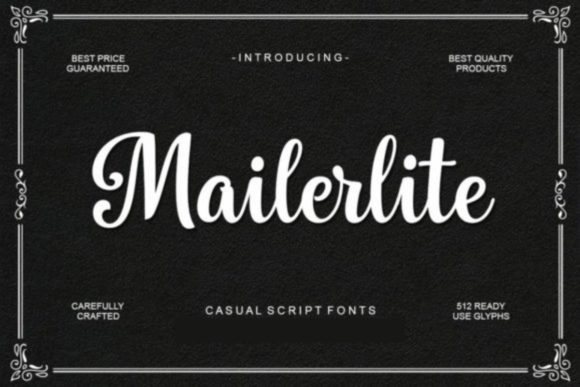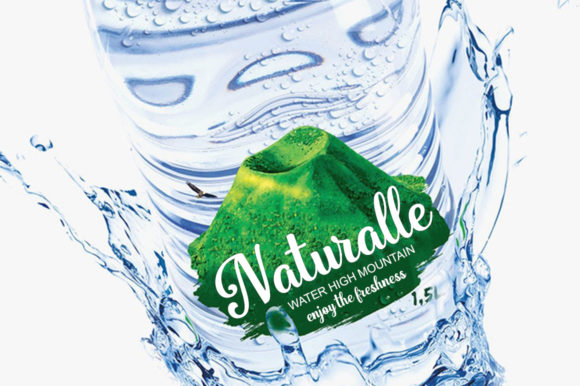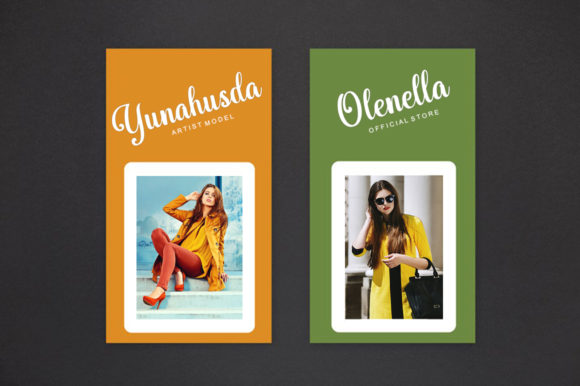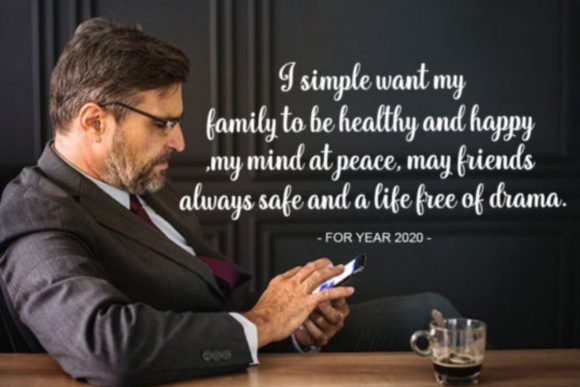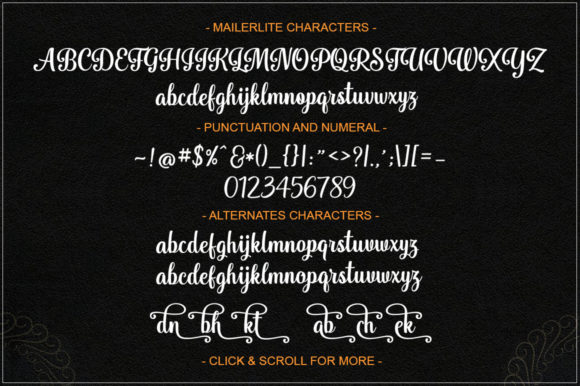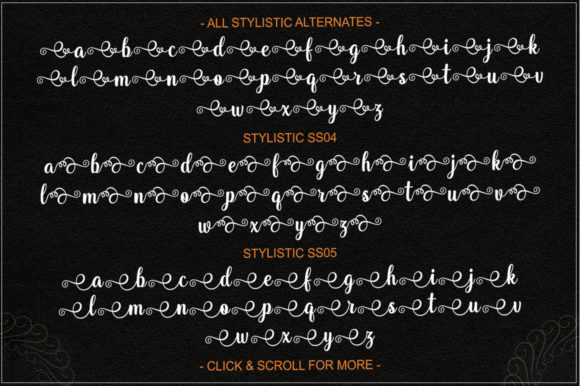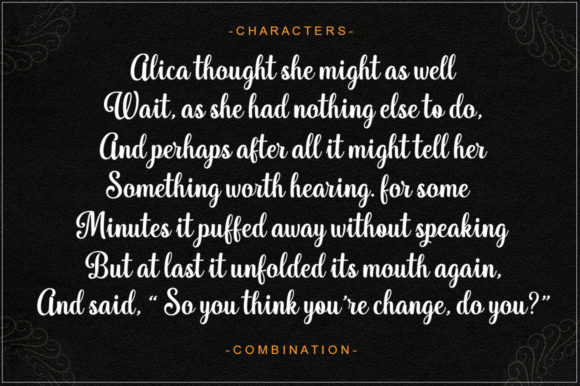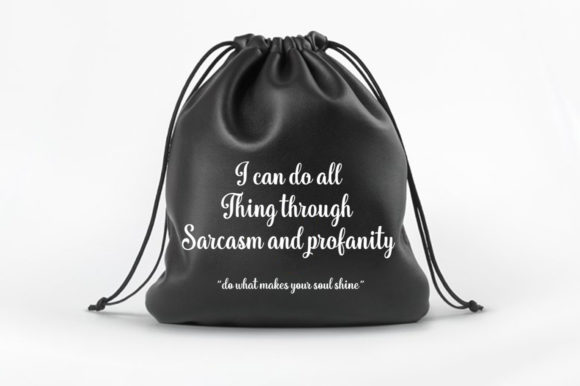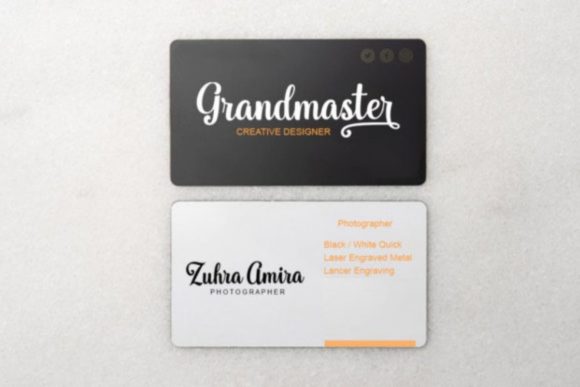
Mailerlite Font
About Mailerlite Font
Mailerlite is a sweet, soft hand-lettered handwritten font. Get inspired by its authentic feel and use it to create gorgeous wedding invitations, beautiful stationary art, eye-catching social media posts, and cute greeting cards.